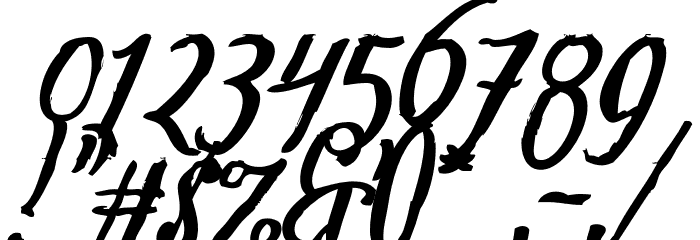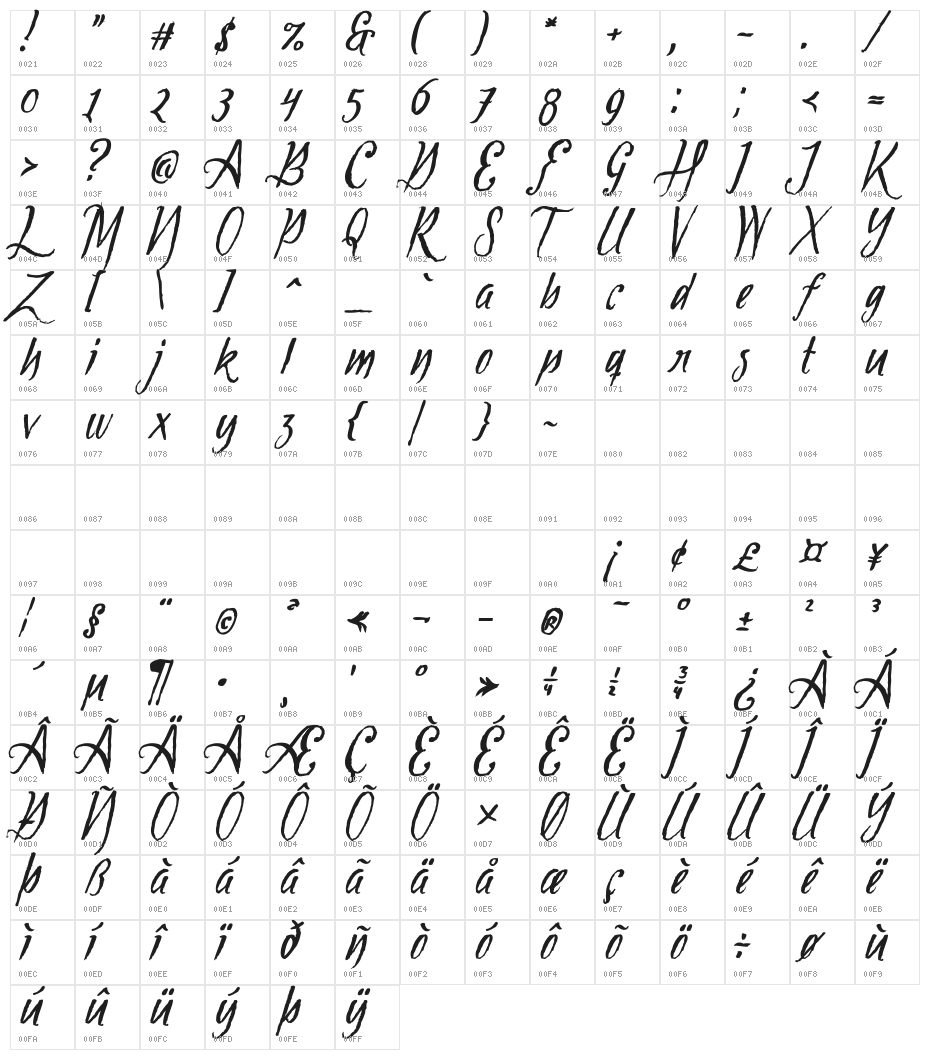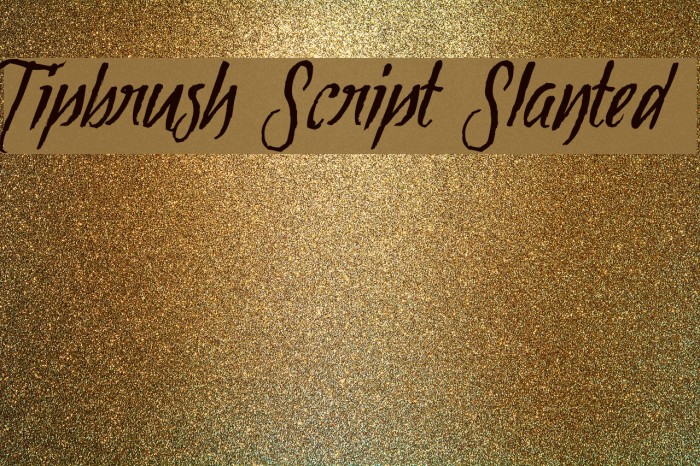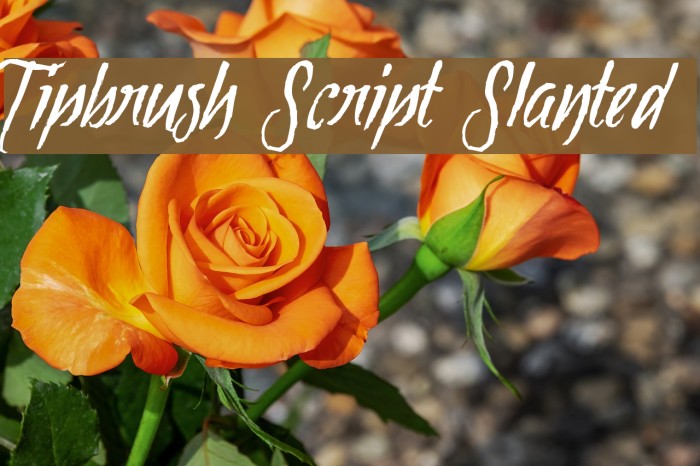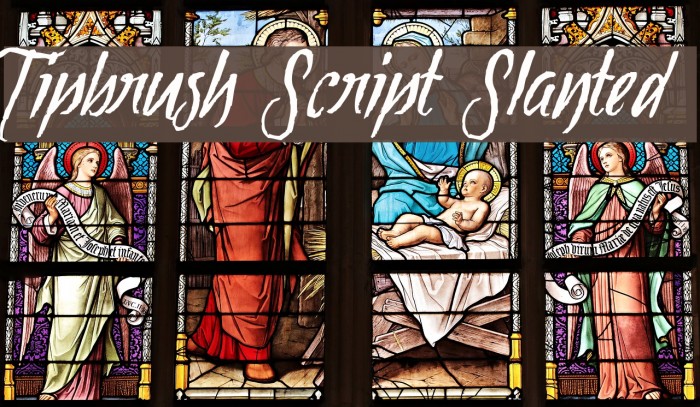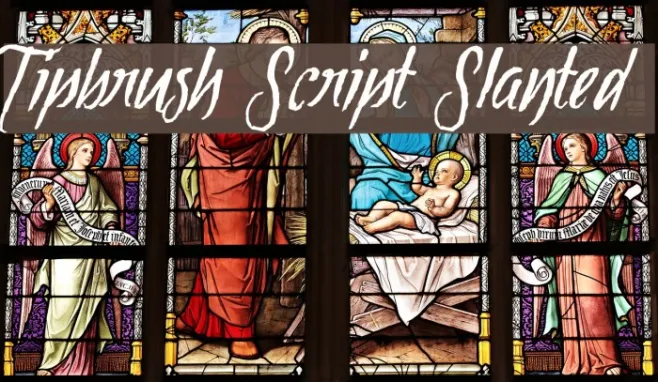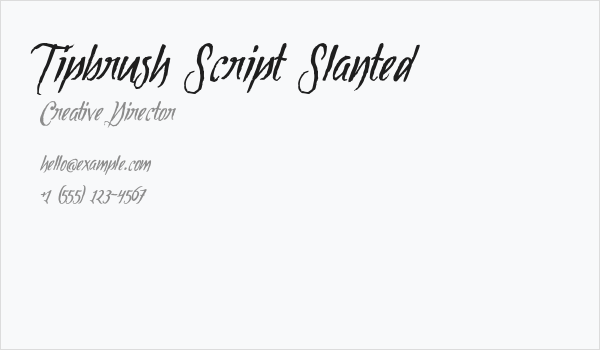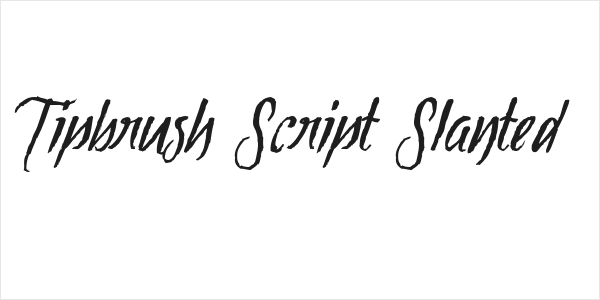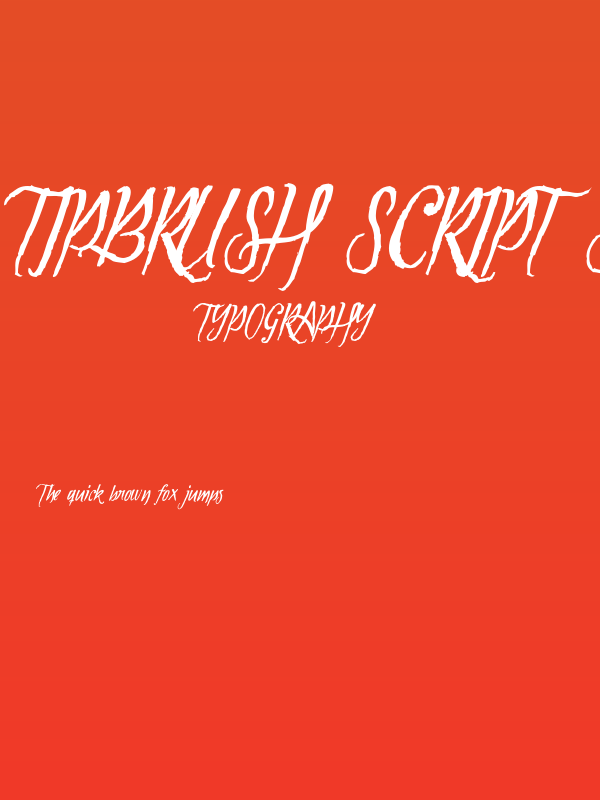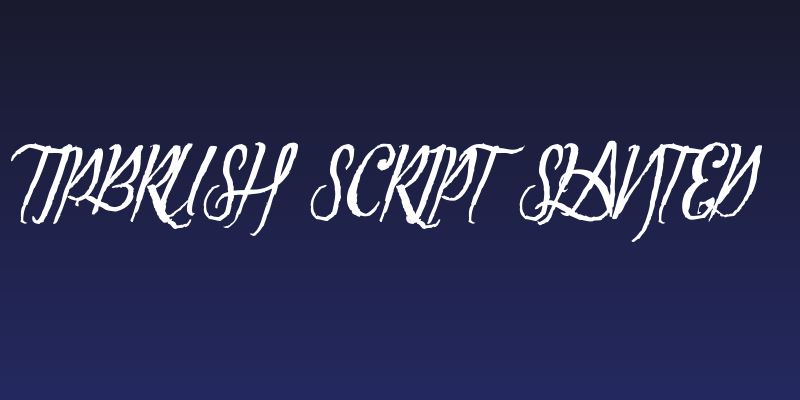
Tipbrush Script Slanted Font
Tipbrush Script Slanted Description
This font exudes a dynamic and expressive style, characterized by its slanted, brush-like strokes that convey a sense of movement and fluidity. The uppercase and lowercase letters are crafted with a distinct flair, featuring elongated and sweeping lines that create a sense of elegance and spontaneity. The numbers and special characters maintain this artistic approach, ensuring consistency across all glyphs. The font's bold and dramatic appearance makes it suitable for projects that require a strong visual impact, such as branding, advertising, or artistic designs. Its unique style captures attention and adds a creative touch to any text.
| Use Case | Logos, Headlines, Artistic designs |
| Proposed Projects | Ideal for branding, advertising, artistic designs, and any project needing a bold visual impact. |